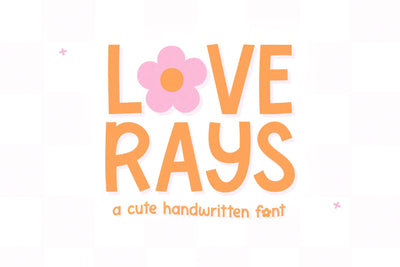
Loverays - Cute Handwritten Font
LoveRays is a fun handwritten font!
There are two fonts included - a regular version and a fun version with a flower for O/o